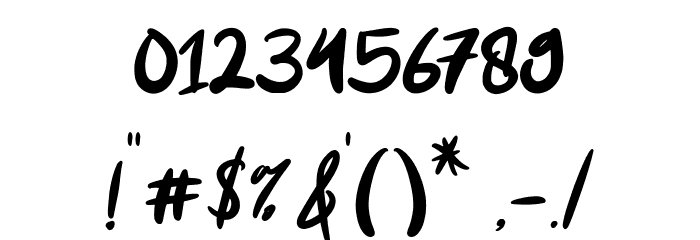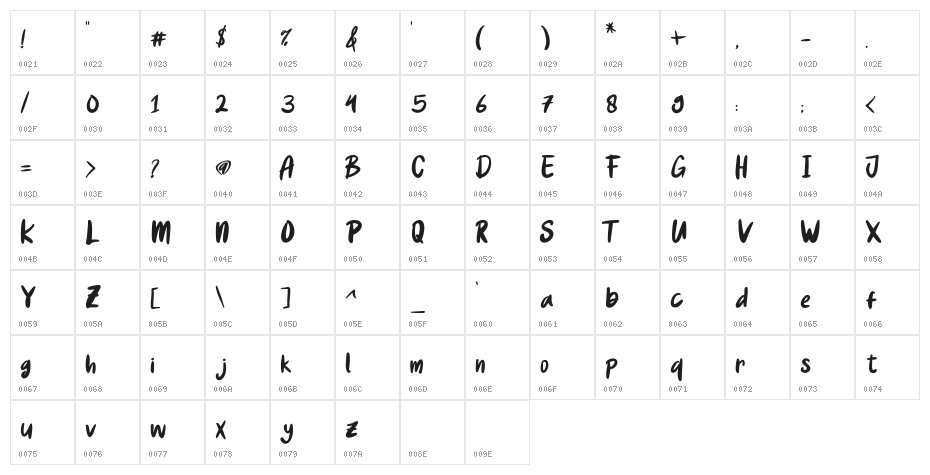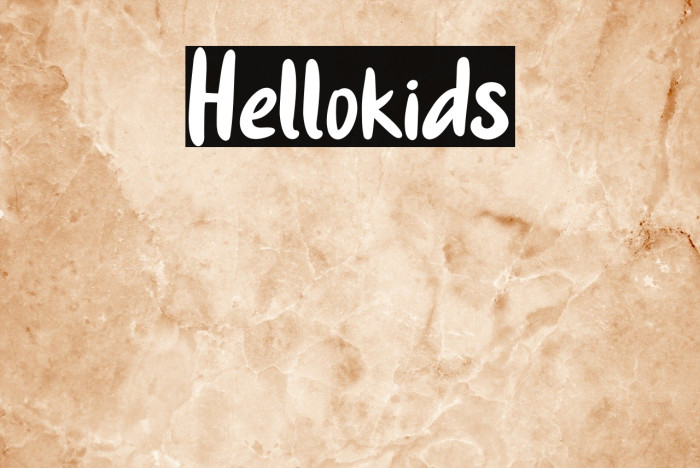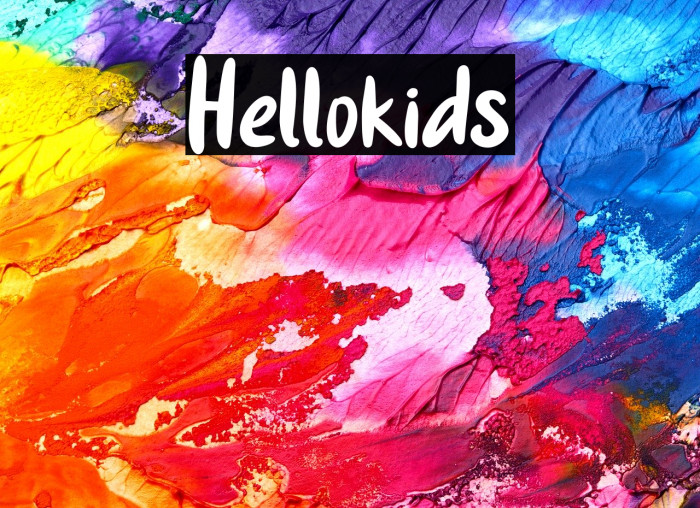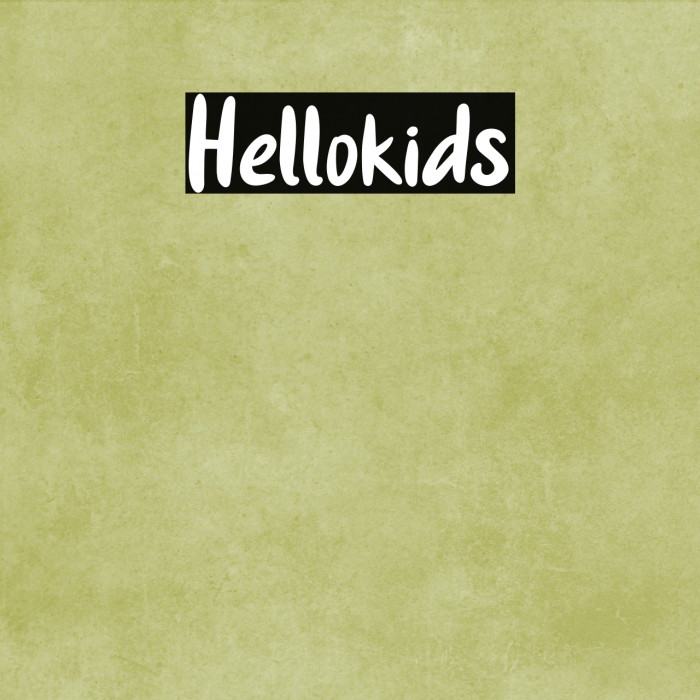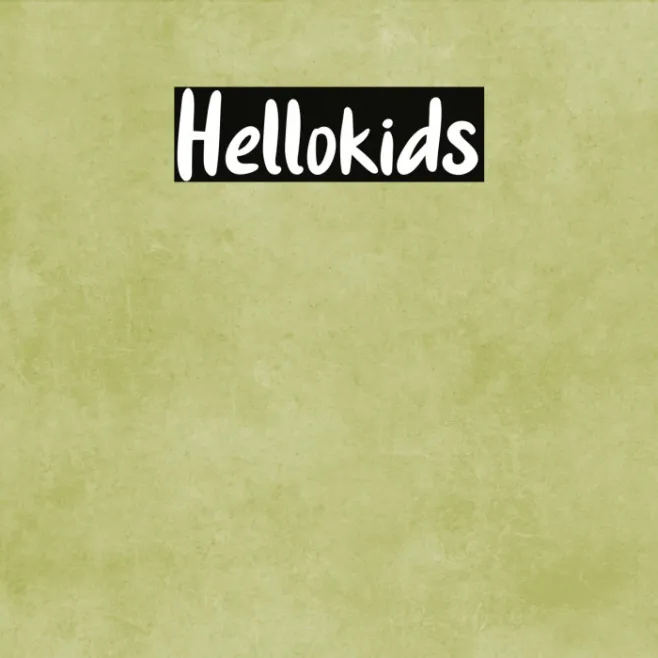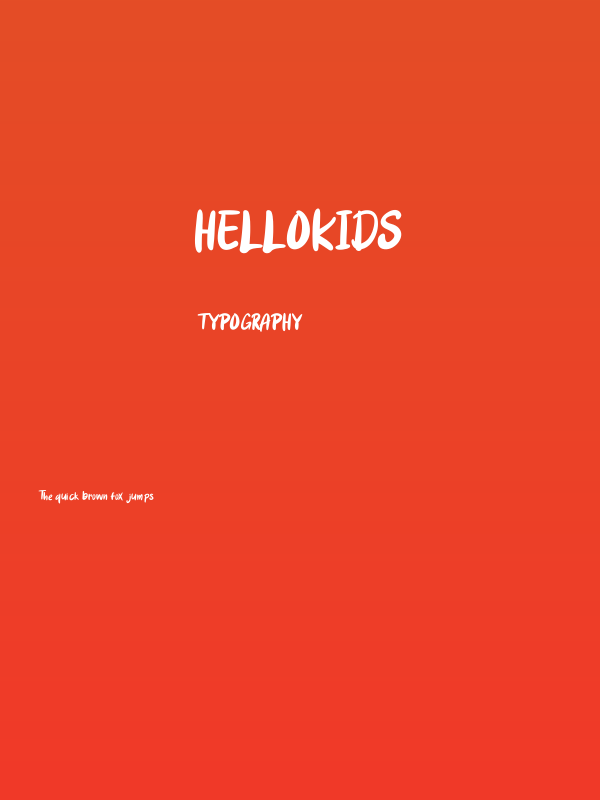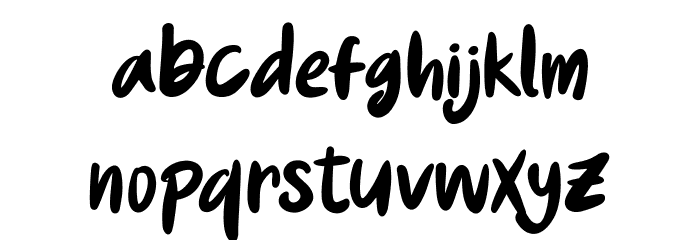
Hellokids Font
Hellokids Description
This playful and energetic font features bold, rounded strokes that convey a sense of fun and creativity. The letters are slightly slanted, giving them a dynamic and informal appearance. The uppercase and lowercase characters maintain a consistent style, with smooth curves and a hand-drawn feel. The numerals and special characters are equally expressive, making this font suitable for a variety of creative projects. Its unique style is perfect for capturing attention and adding a personal touch to any design.